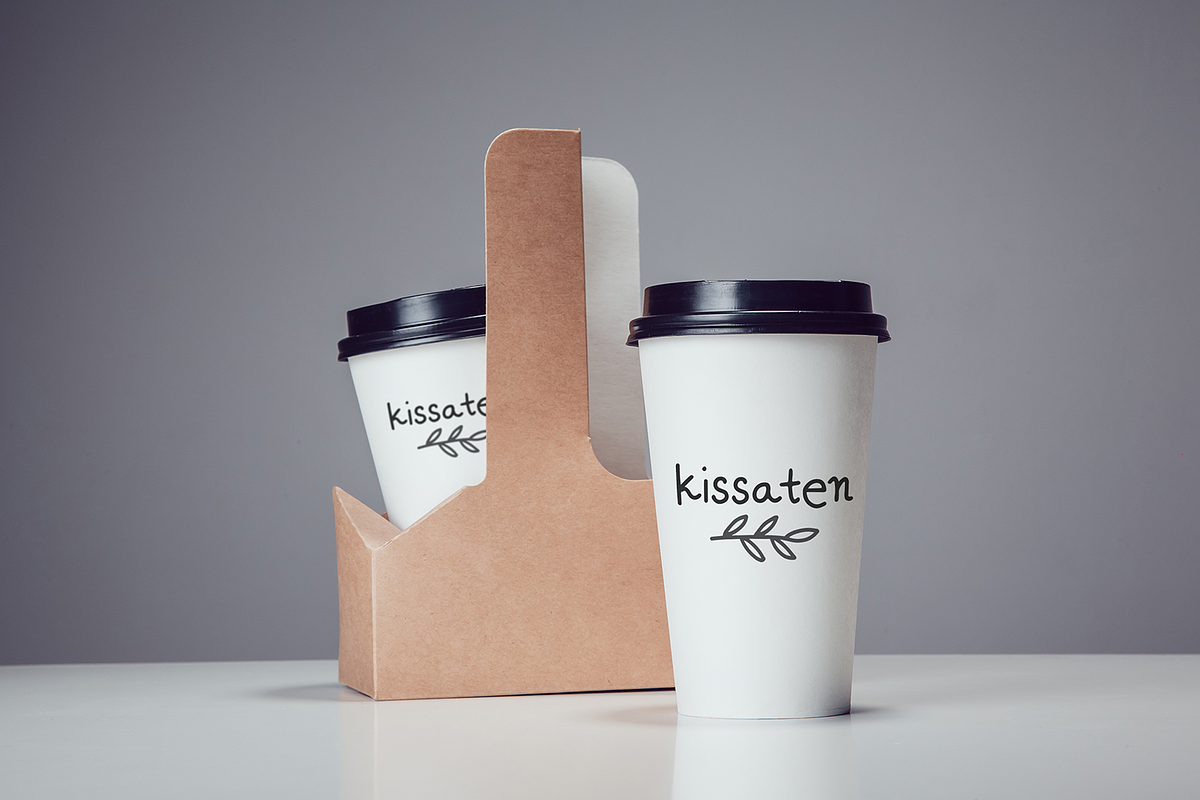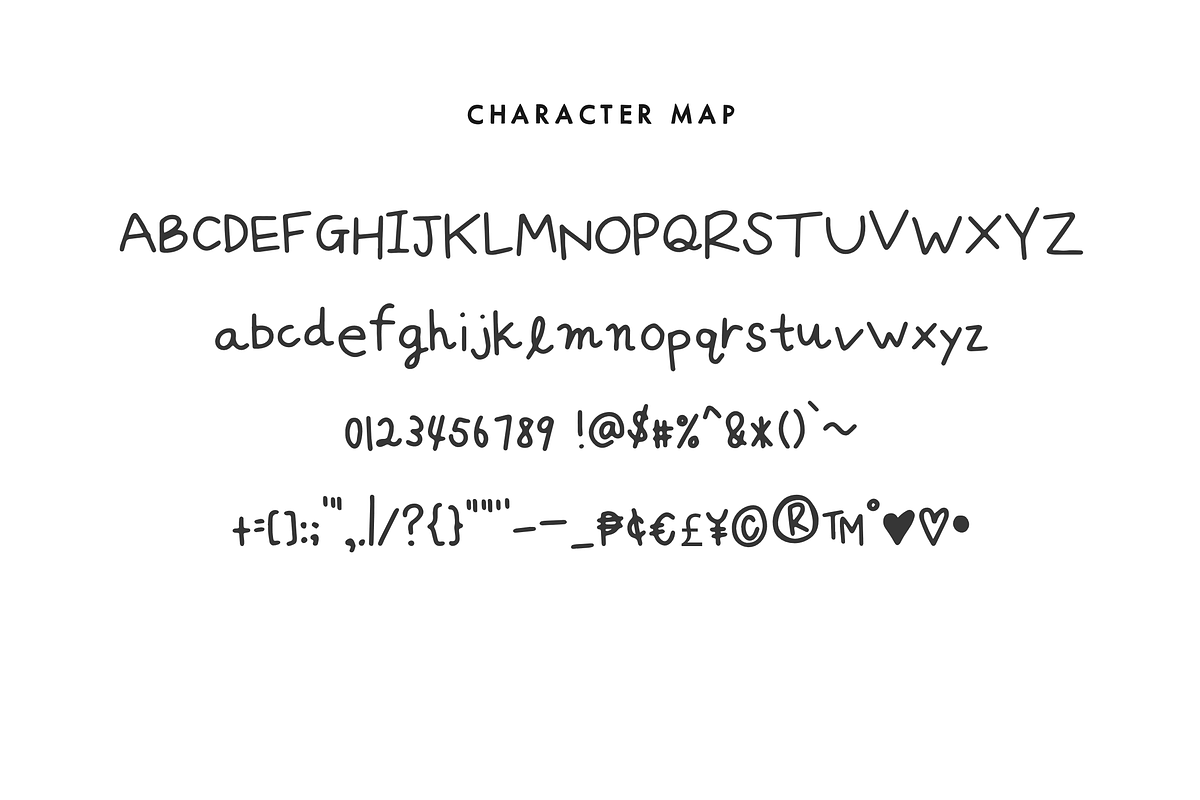
Mix Zakka
MIX ZAKKA, a typeface inspired by a recent trip to Japan, and a walk through the Nakazaki-cho area in Osaka. This font is perfect for handmade and DIY themed projects.
Mix Zakka by Mix Fonts fits naturally into Branding, posters, packaging, typography.